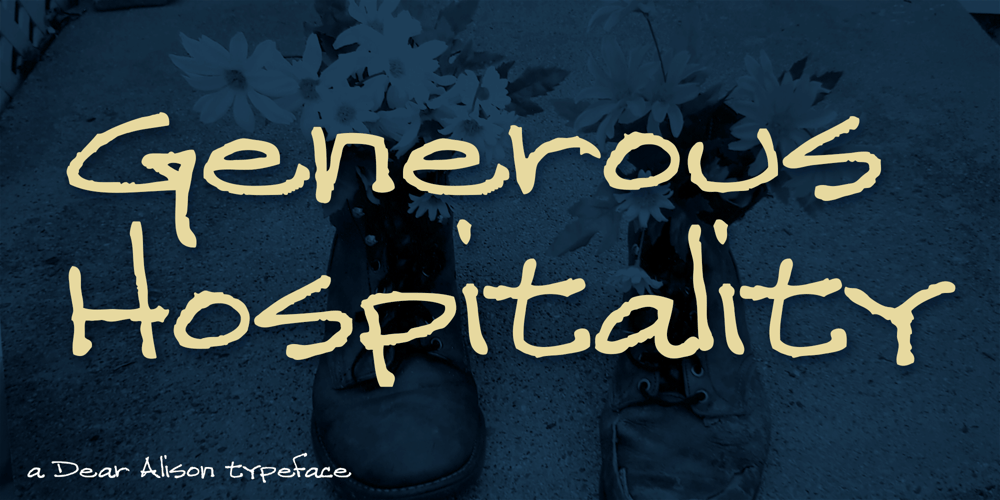
Generous Hospitality
Generous Hospitality font
Generous Hospitality Font Family was designed by Alison Argento and published by Dear Alison. Generous Hospitality contains 1 styles and family package options. While there can be similar handwriting styles out there, no two handwritings are exactly the same. I like to think that I have the same handwriting style as my father, but I had never seen him write with lowercase letters, only in all capitals, except when signing his name on something in cursive. I recently came across a letter my father had written long ago to a friend. It was returned to sender, yet he kept it intact. The letter primarily thanked his friend for his hospitality when my father unexpectedly dropped in for a visit while traveling. I was so taken by the handwriting, that I decided to make it into a font, not only to remember my father, but also to forever preserve his handwriting. Generous Hospitality not only taps into the character of the person the letter was written to, it also reflects the personality of my father. If you are looking for a masculine handwriting type style for your designs, I think this font could be a nice fit.